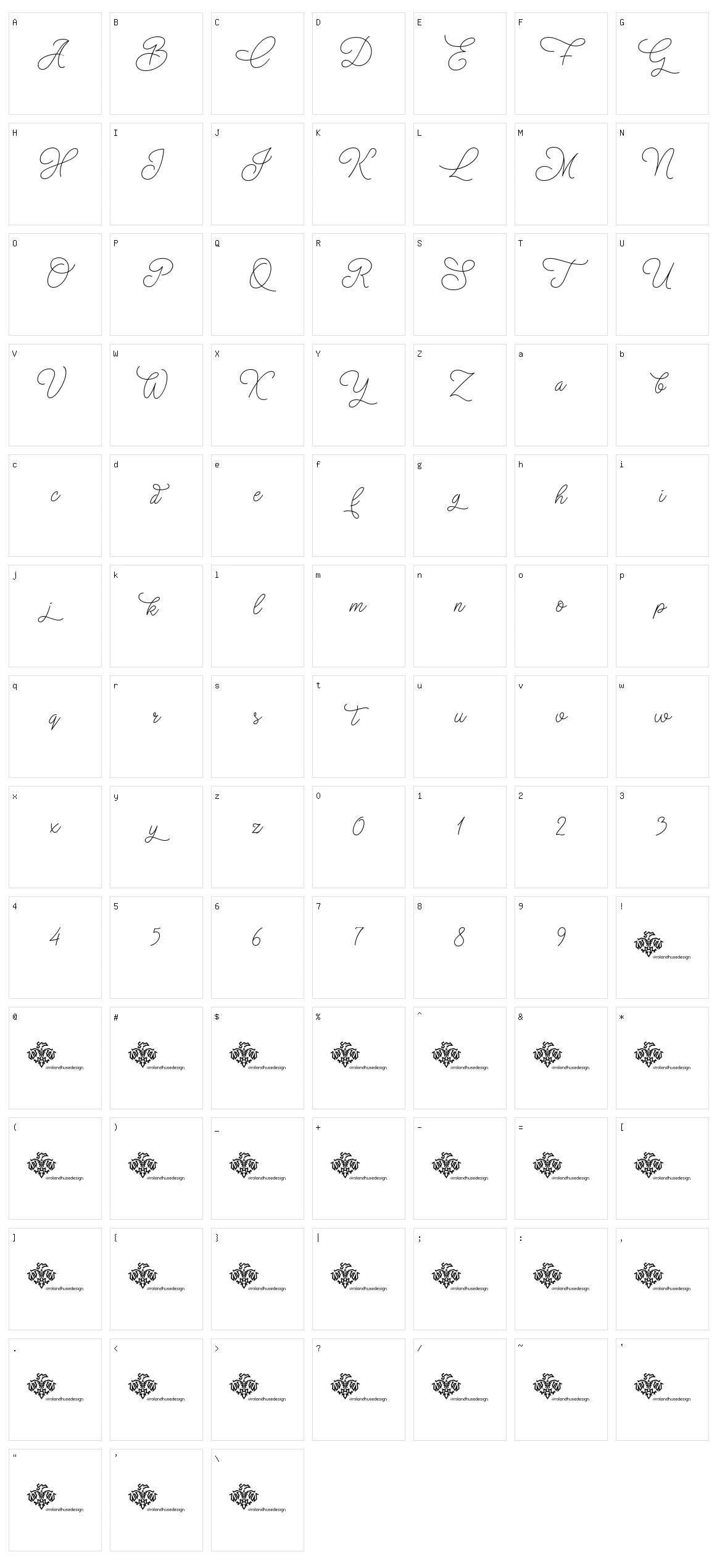
C H R I S T M A S W I S H i s a c u r s i v e m o n o l i n e s c r i p t t h a t h a s a c a l l i g r a p h y v e r s i o n a s w e l l .
F u l l v e r s i o n c o n t a i n s t e r m i n a l s a n d l i g a t u r e s f o r b e t t e r c o n n e c t i o n a n d m o r e n a t u r a l f l o w , E a s t e r n a n d W e s t e r n E u r o p e a n l a n g u a g e a c c e n t e d c h a r a c t e r s .